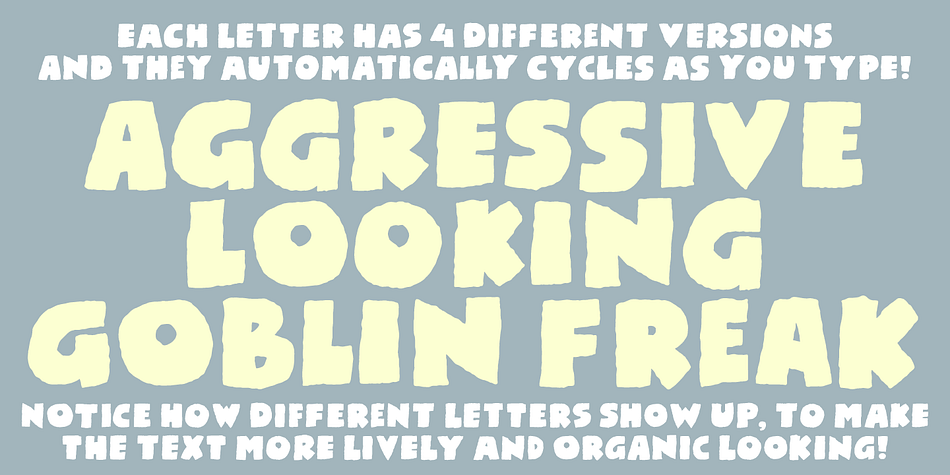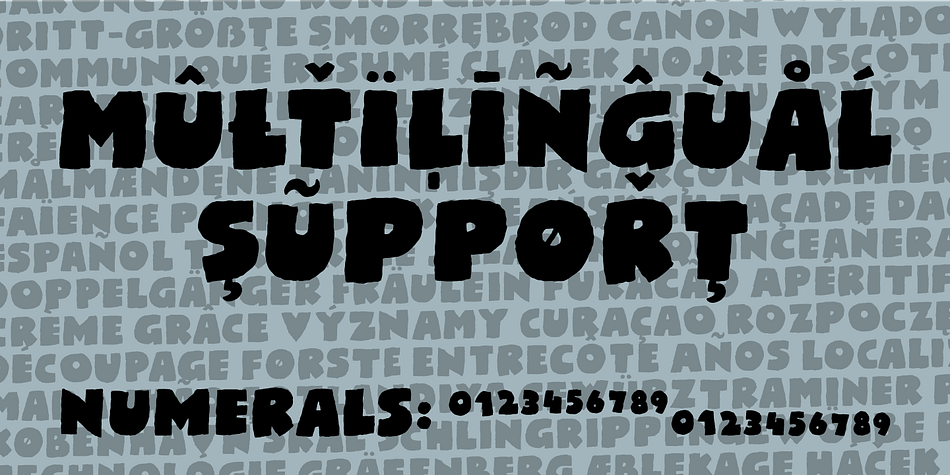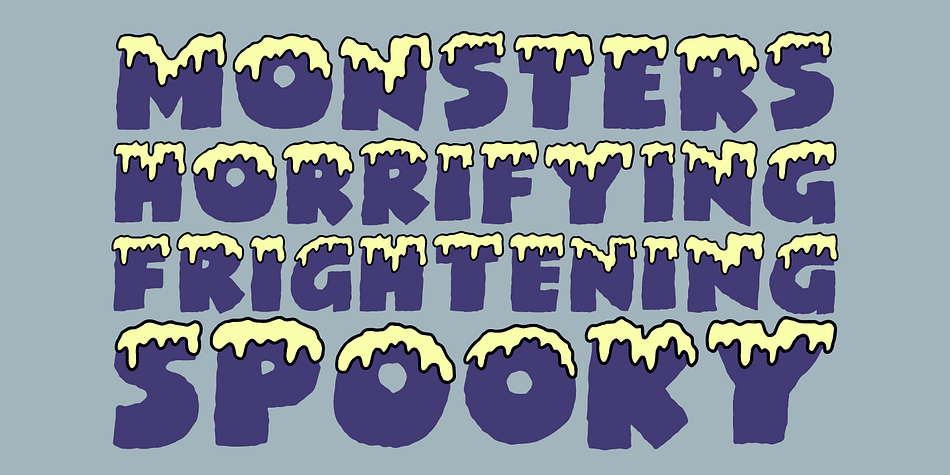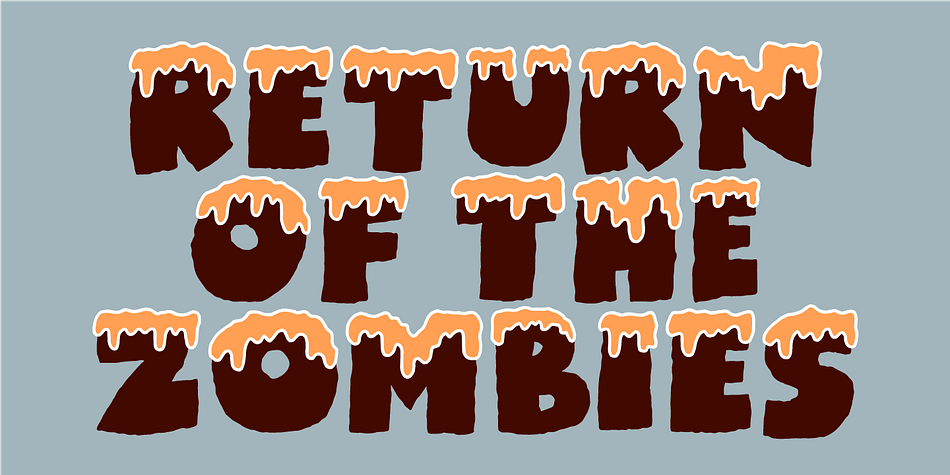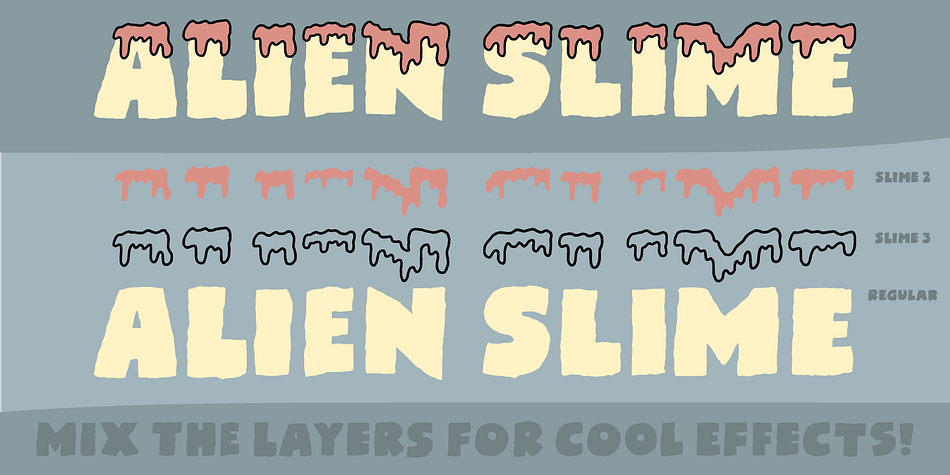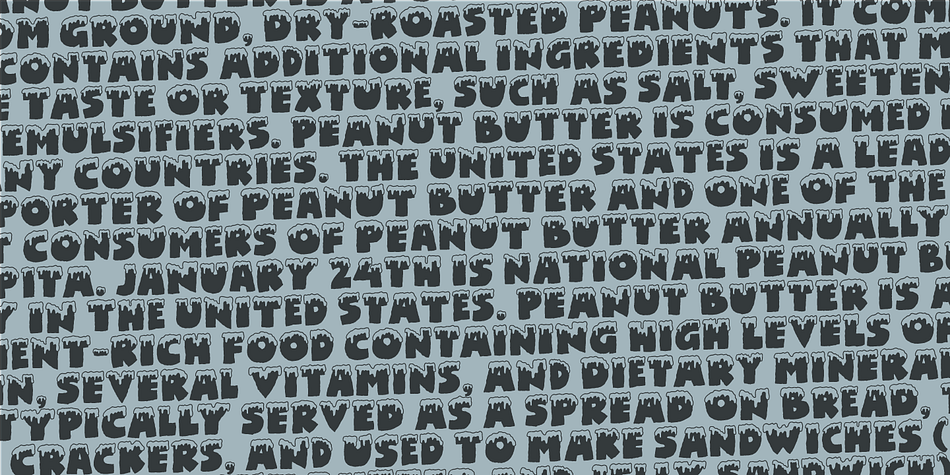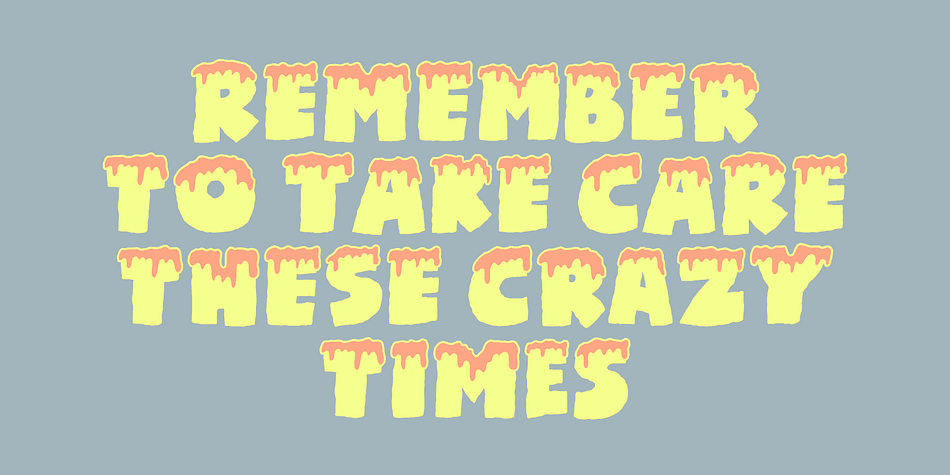
Designed by Jakob Fischer, Crazy Fever is a hand display and dingbat font family. This typeface has four styles and was published by Pizzadude.dk.
Is it snow? Is it water? Is it slime? Is it from this earth?
The questions are many - one thing is certain - with this font you can create cool effects by mixing the layers - and in the end, you decide whether the result is going to be scary, delicious or somewhere in between!
Use the different layers and your favourite color scheme and just type ahead - the contextual alternates (with 4 different versions of each letter) automatically cycles the letters and make your text look more lively - or maybe even scary!